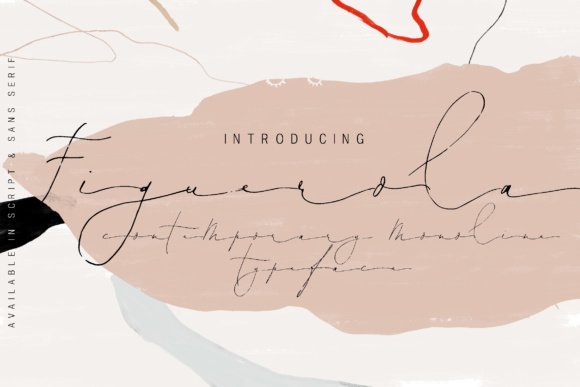
Introduction to Figuerola Font
Figuerola is a contemporary font that comes in 2 styles that you can mix to create a unique design.
Figuerola is best for: blogs, logos, social media, branding, posters, quotes, wedding cards & so forth, you decide .